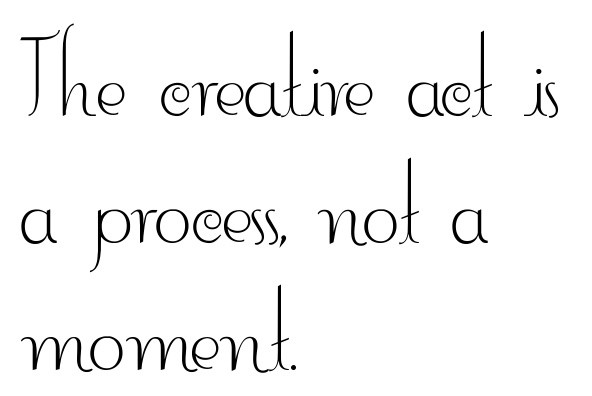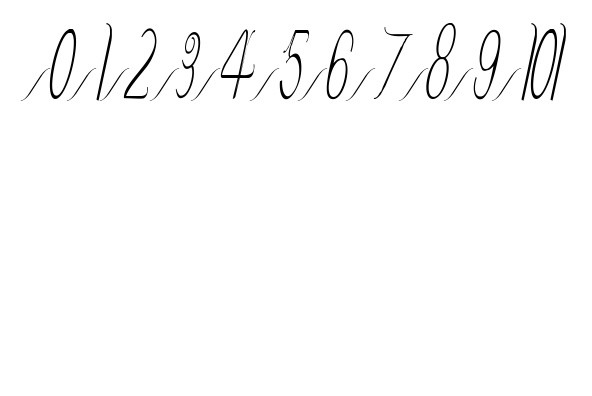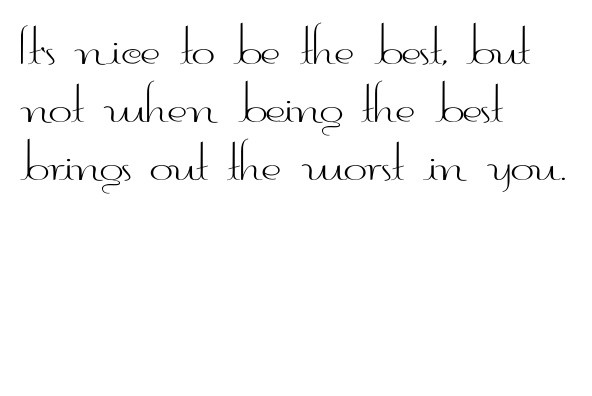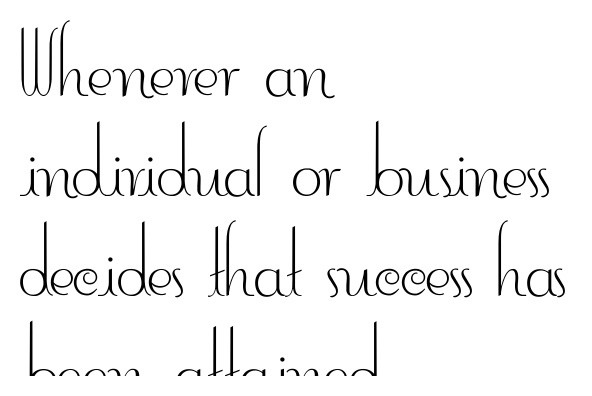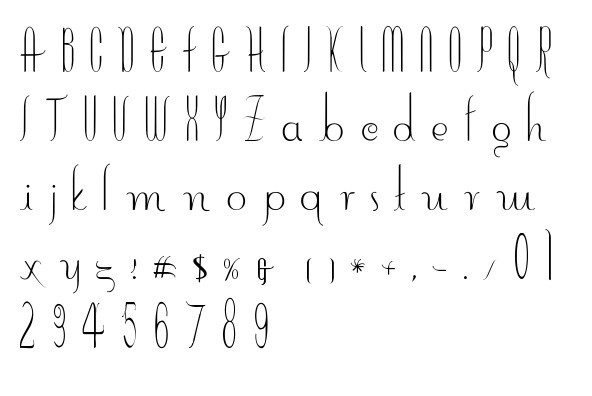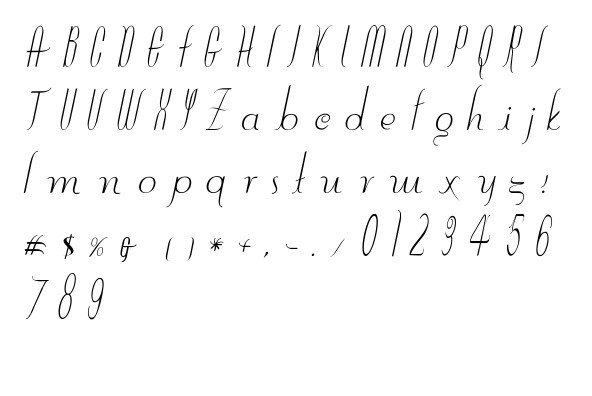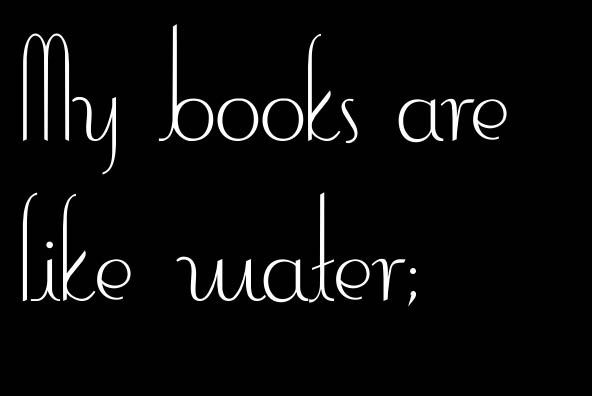
Contouration
Foundry: Intellecta Design
Contouration is an Art Deco inspired typeface from IntellectaDesign. Excelent for more feminine design projects.